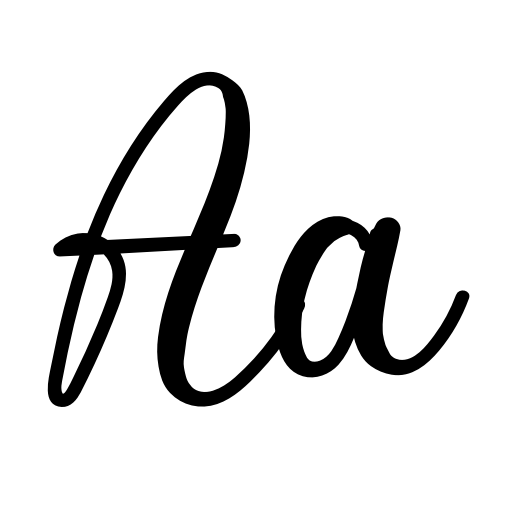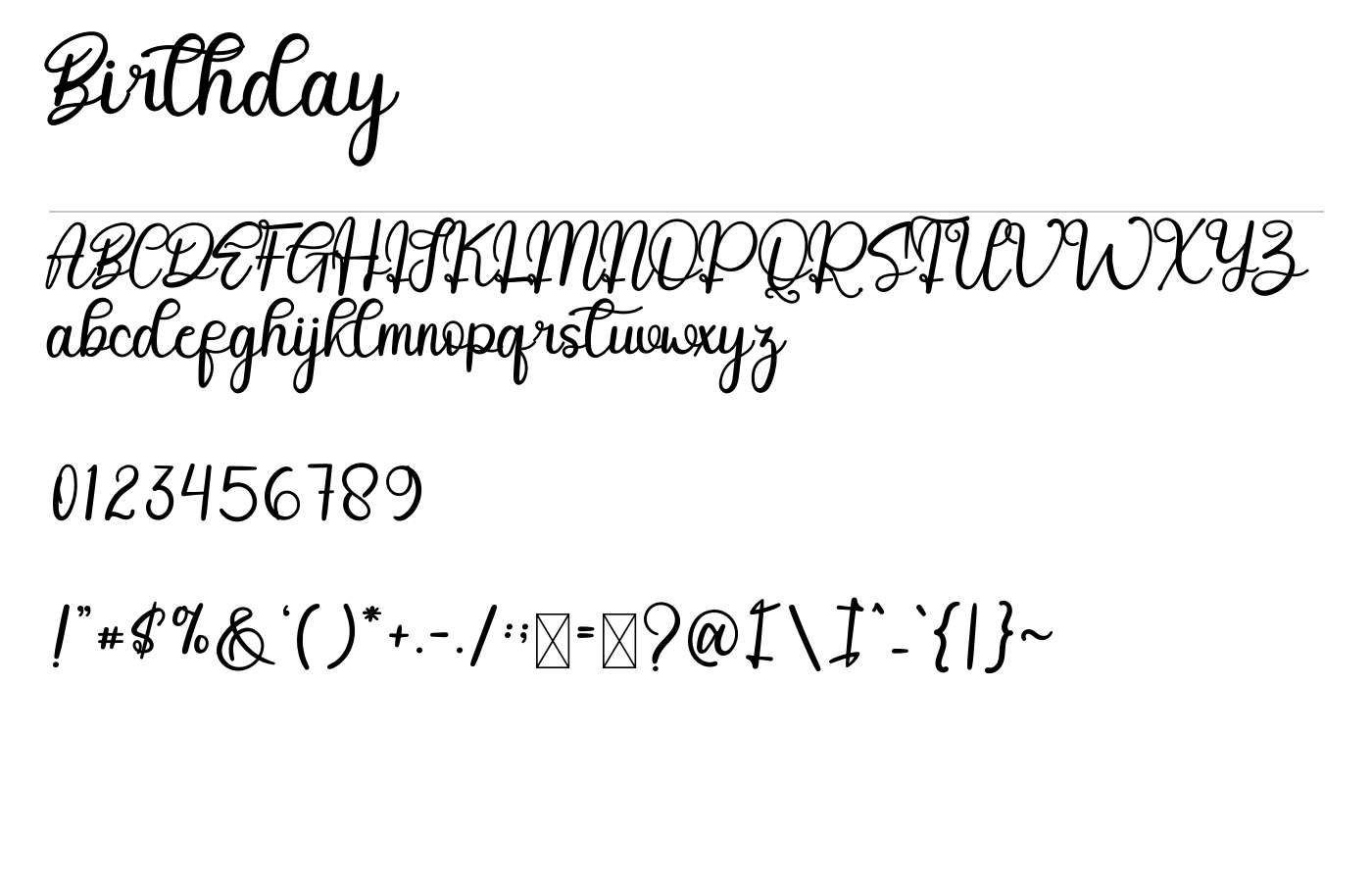
Birthday Font is a playful and elegant script typeface that combines delicate, fluid strokes with a slightly casual, handwritten feel. Its slender letterforms and subtle loops create a charming, approachable style perfect for invitations, celebrations, and creative branding where a personal touch is desired. This font works beautifully in decorative headlines and logos, adding warmth and personality to festive or friendly designs.
Birthday Font
About Birthday Font